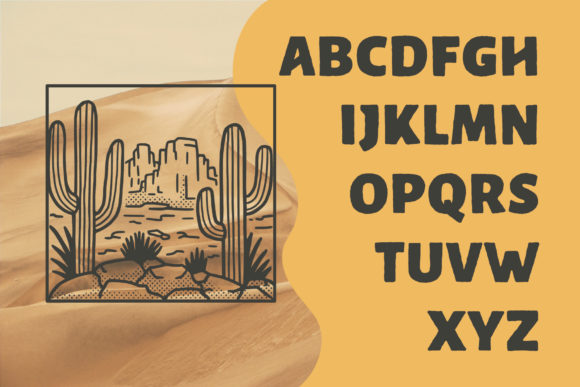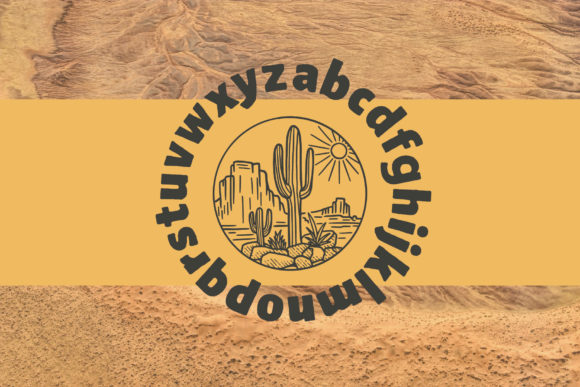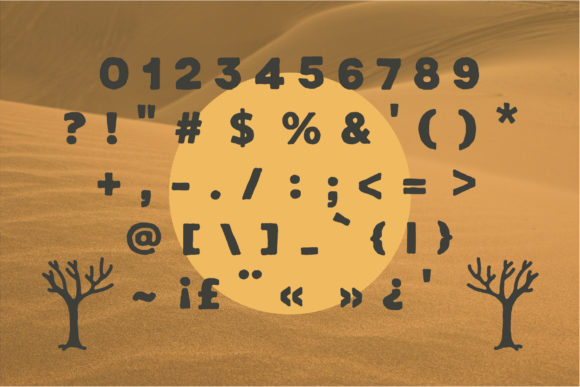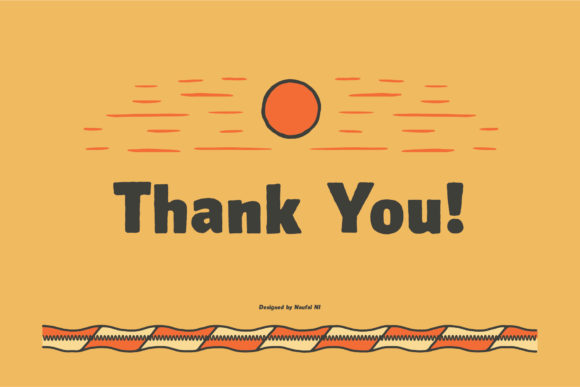
Introduction to Sandbad Font
Sandbad is a bold and clean display font, and is inspired by the vintage desert.
This font is suitable as a book cover, as it has a high readability .